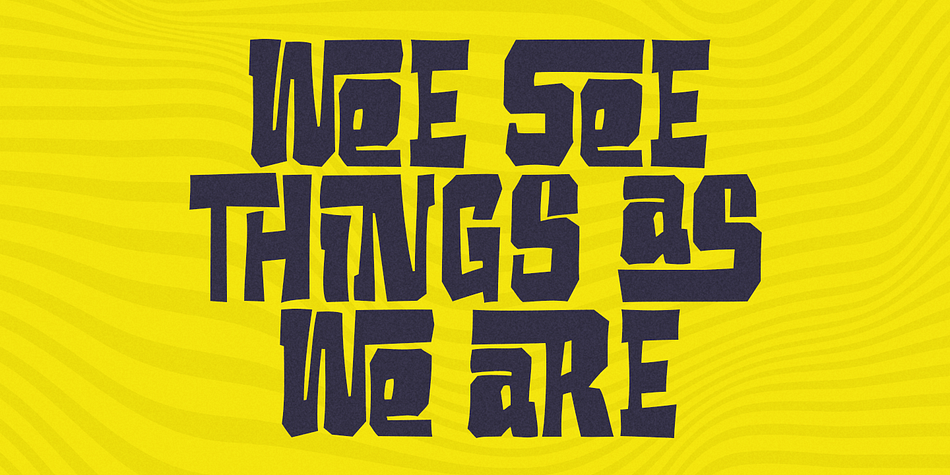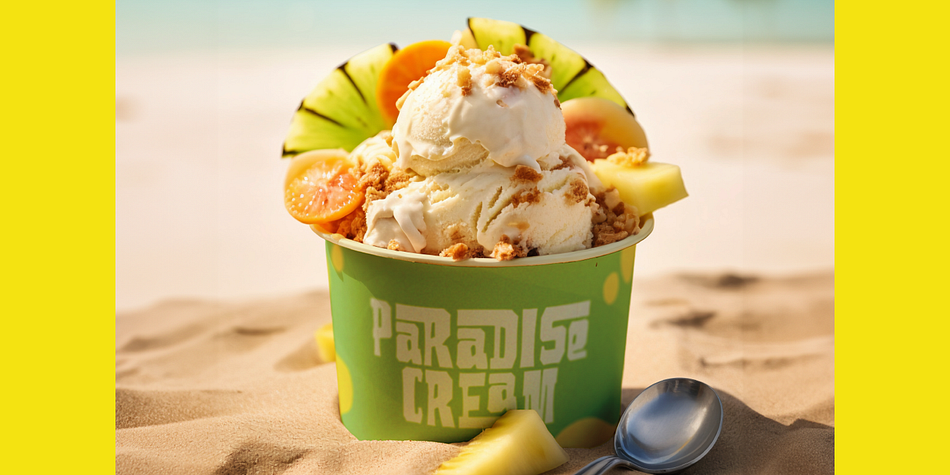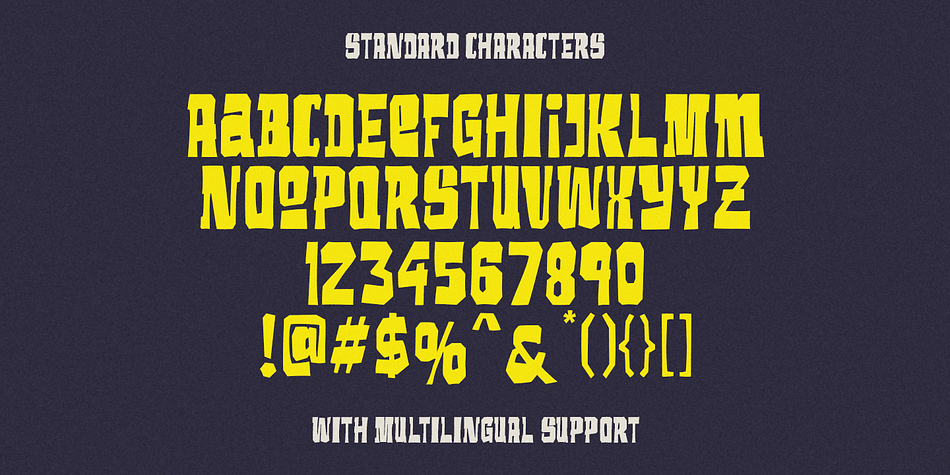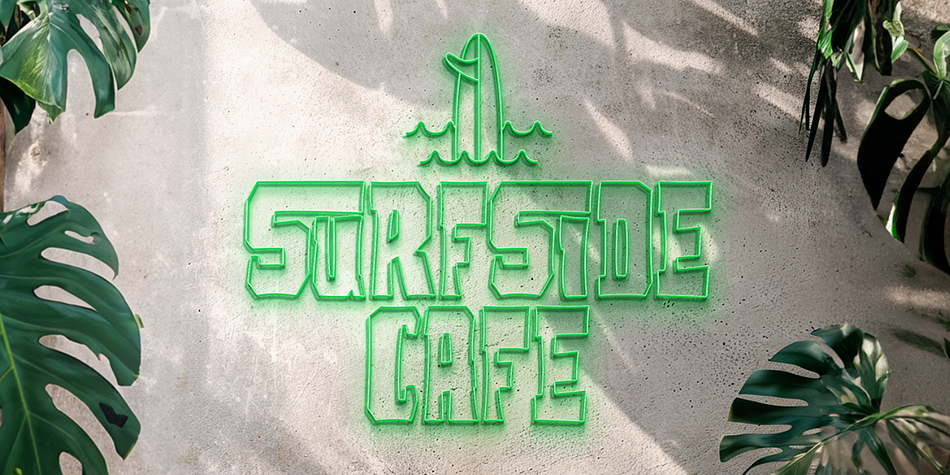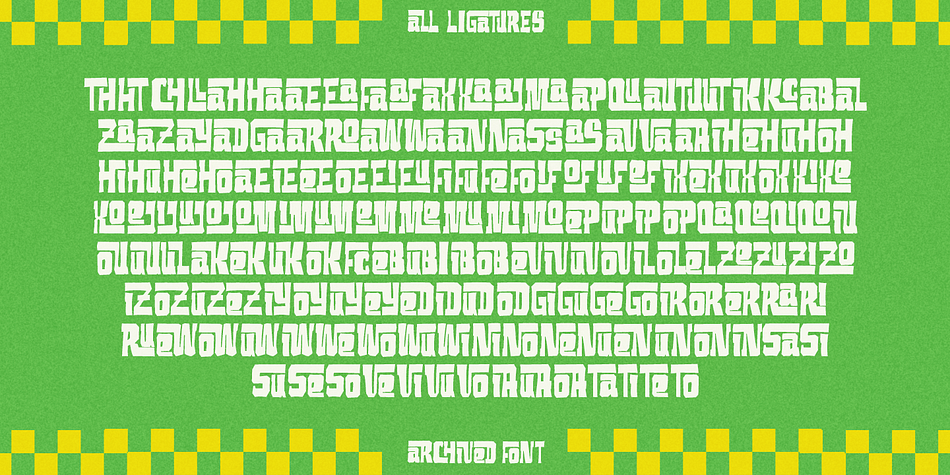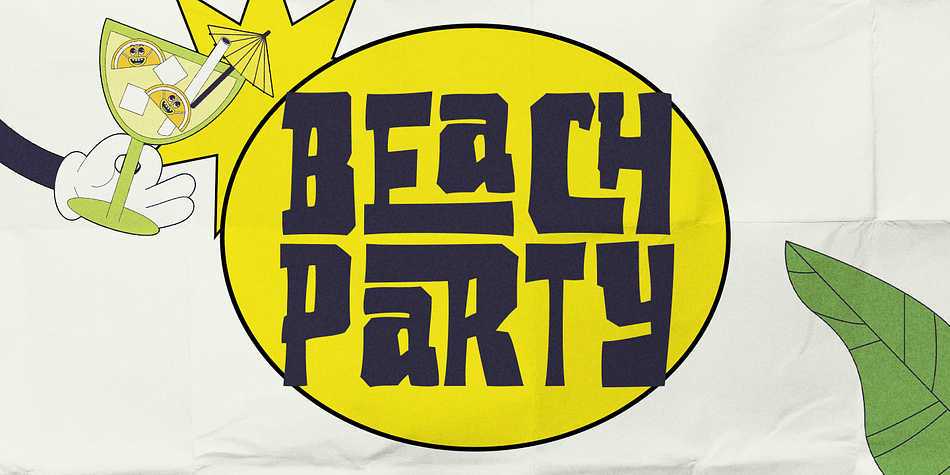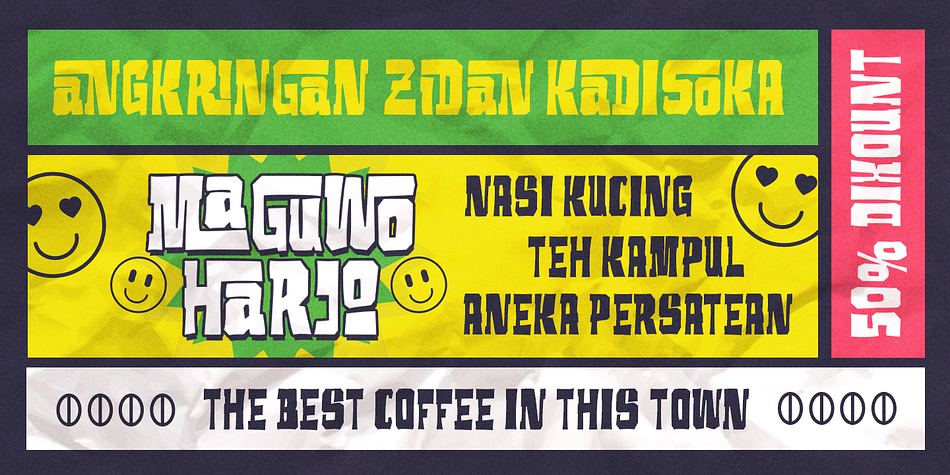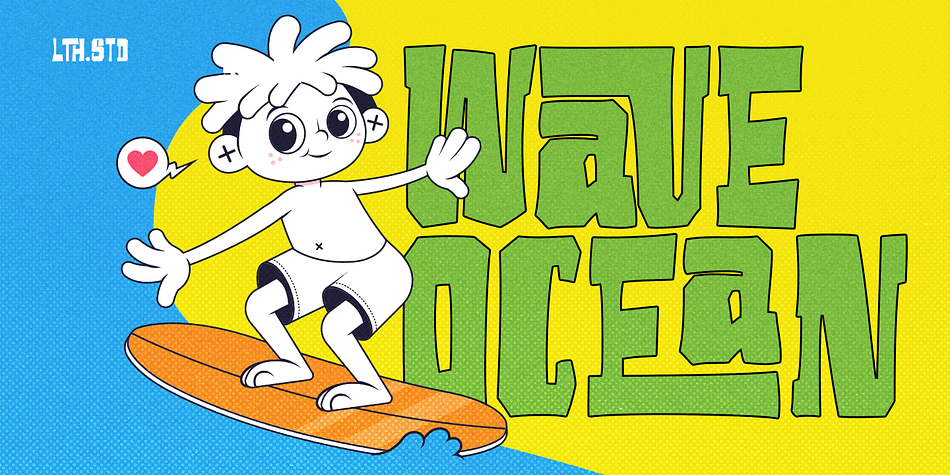
ARCHIVED
Designed by Hendry Juanda, Archived is a display slab font family published by Letterhend Studio.
Archived is a ligature display font with a unique letterform. This font will bring you back to retro feel. This font is perfectly made to be applied especially in logos, and the other various formal forms such as invitations, labels, logos, magazines, books, greeting / wedding cards, packaging, fashion, make up, stationery, novels, labels or any type of advertising purpose.
- Alternates & Ligatures